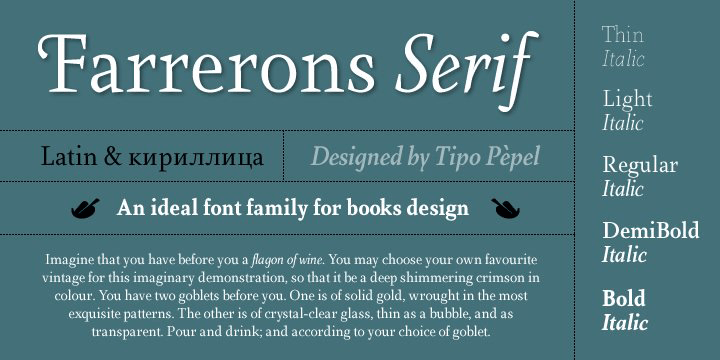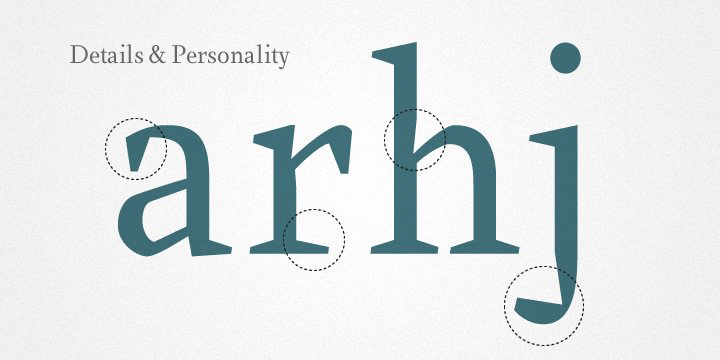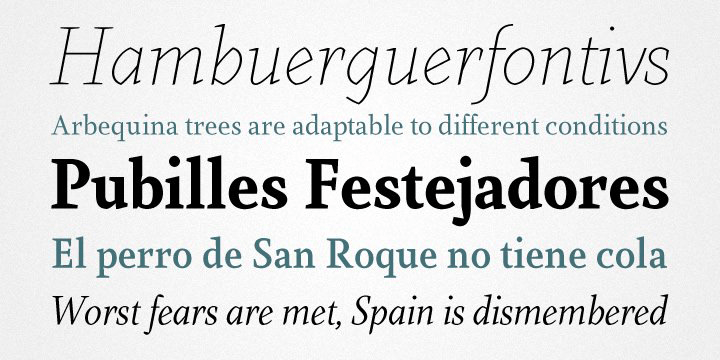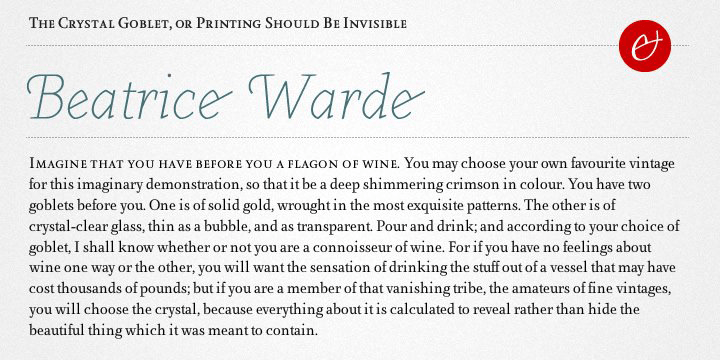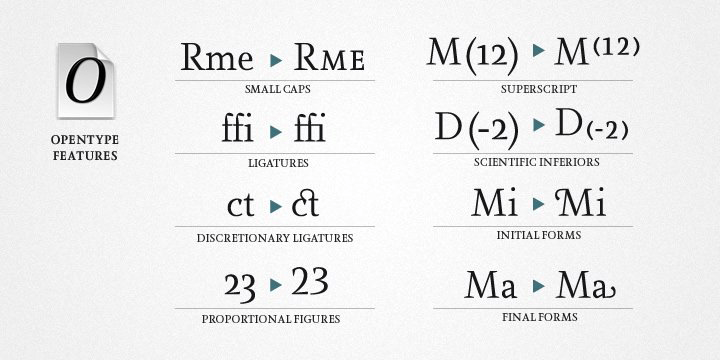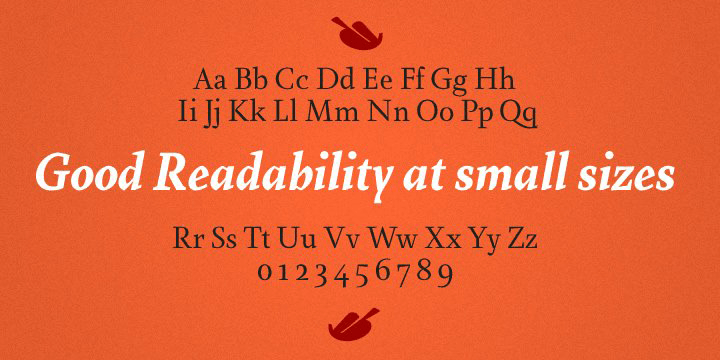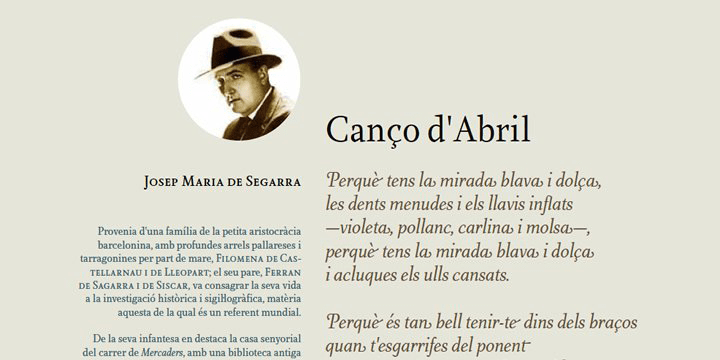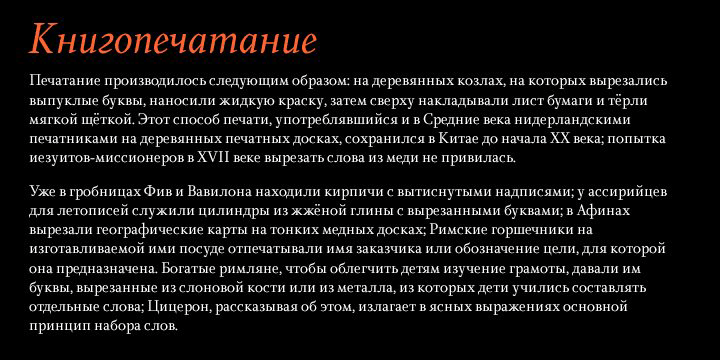
Farrerons Serif
Font Family by Tipo Pèpel
Specially designed for text size, Farrerons is a full-working Open-type Font. Looking superbly readible but providing a distinctive formal character for immediate impact due to its sudden strokes, mixing delightfully the ancient Roman Trajan inspired uppercase characters with lowercase characters inspired in XV